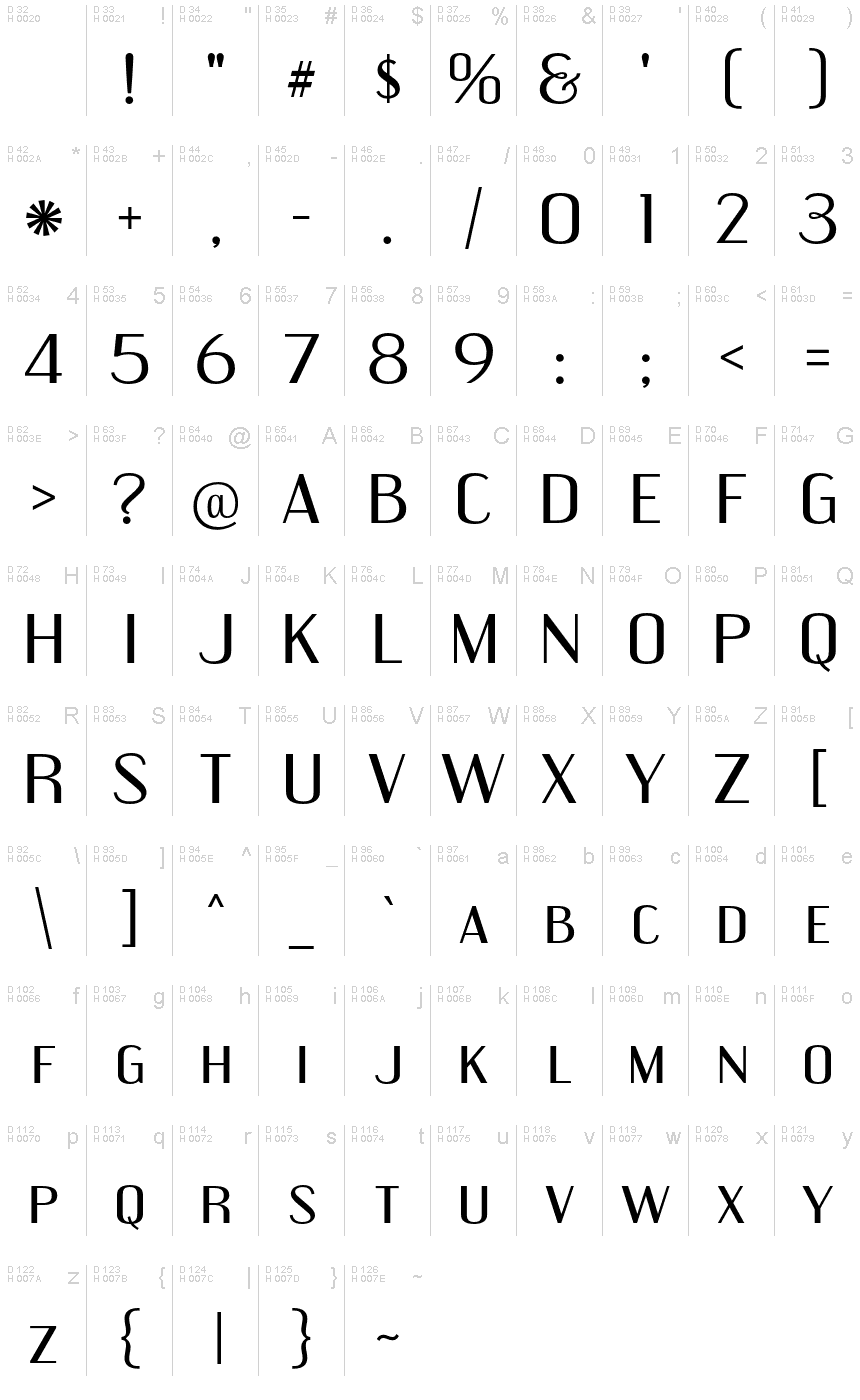
EngebrechtreEx by Ray Larabie of Typodermic Fonts Inc. is a free condensed sans serif with tall, clean-cut letters and an unmistakably architectural profile. Broad rounded forms alternate with very narrow characters, producing an unusual cadence across a line without decorative detail.
Packaging gives this lettering a convincing home, especially for fashion labels and cosmetics that favor a cool, pared-back look. Its sharp vertical emphasis also suits magazine covers and event posters. Across these uses, the contrast between narrow uprights and expansive curves creates a refined display voice that feels closer to modernist architecture than ordinary commercial lettering.
Engebrechtre is an early-20th-century stressed sans serif typeface created in 2000. The regular weight was redesigned from scratch with new spacing, kerning, and web-friendly horizontal precision. The S and accents were redesigned, and more languages are supported. The italics use round dots rather than slanted dots. The font also includes additional mathematical symbols, fractions, numeric ordinals, an @ symbol, and the Indian rupee symbol. Vertical metrics have been optimized for web performance.